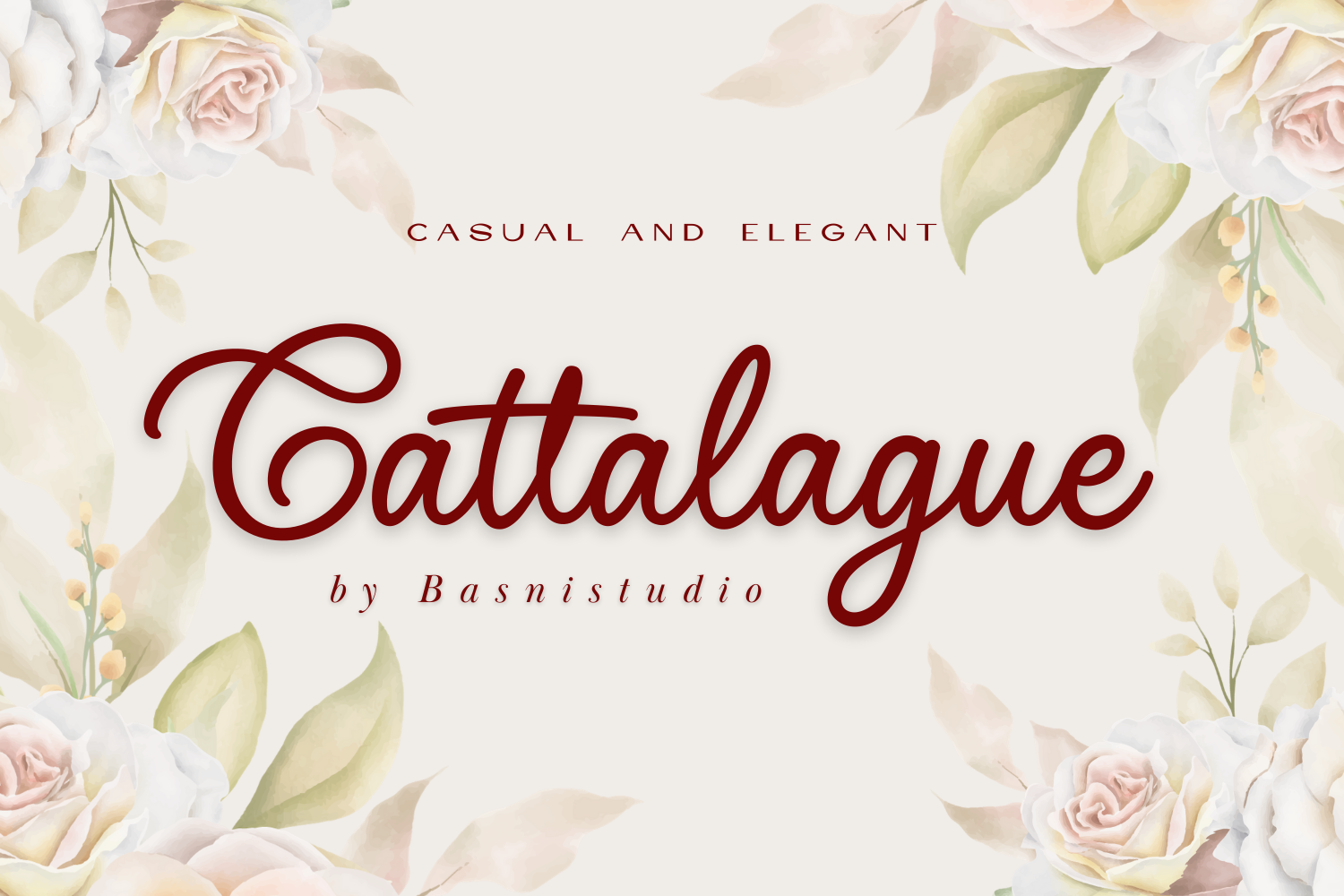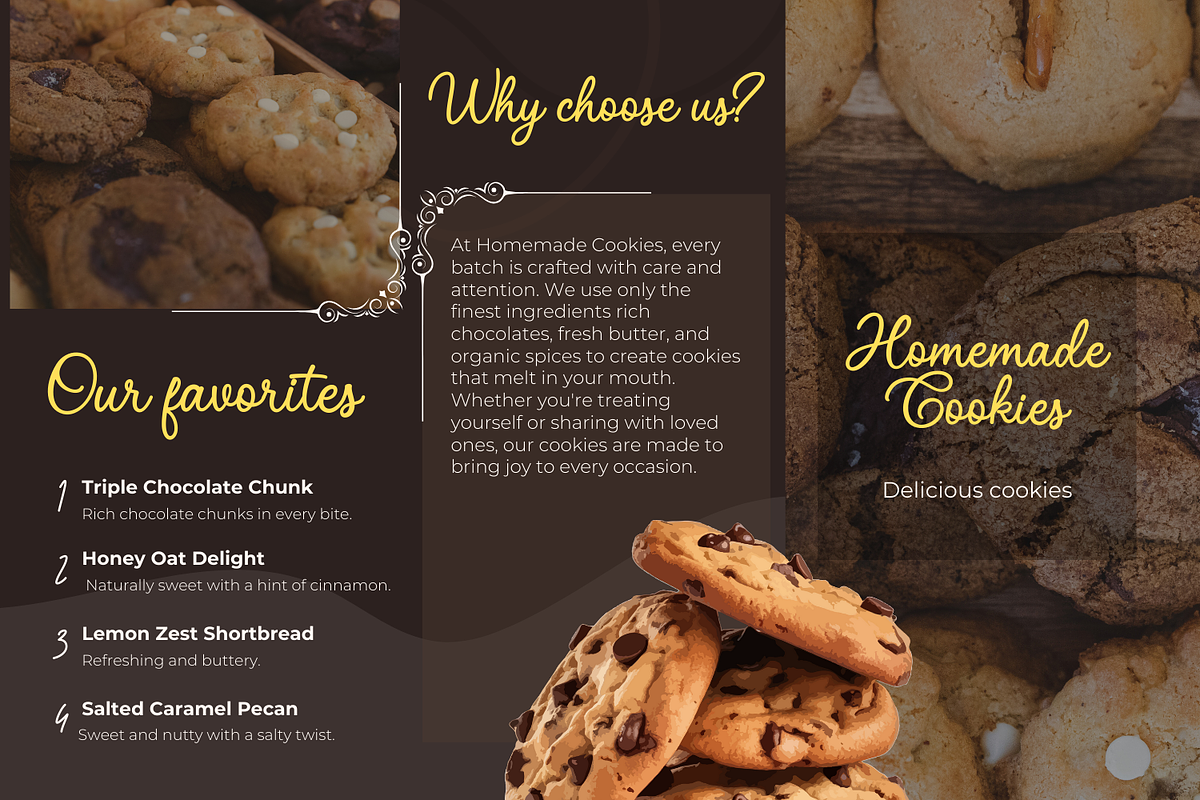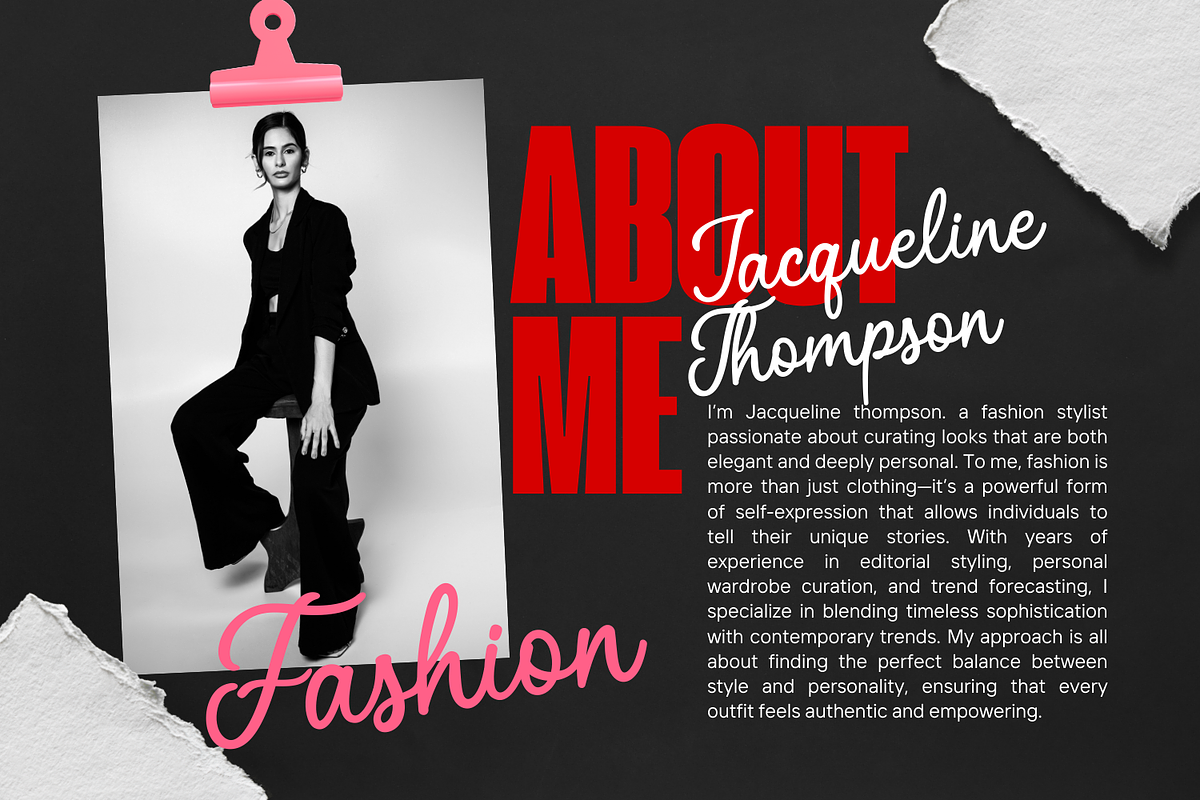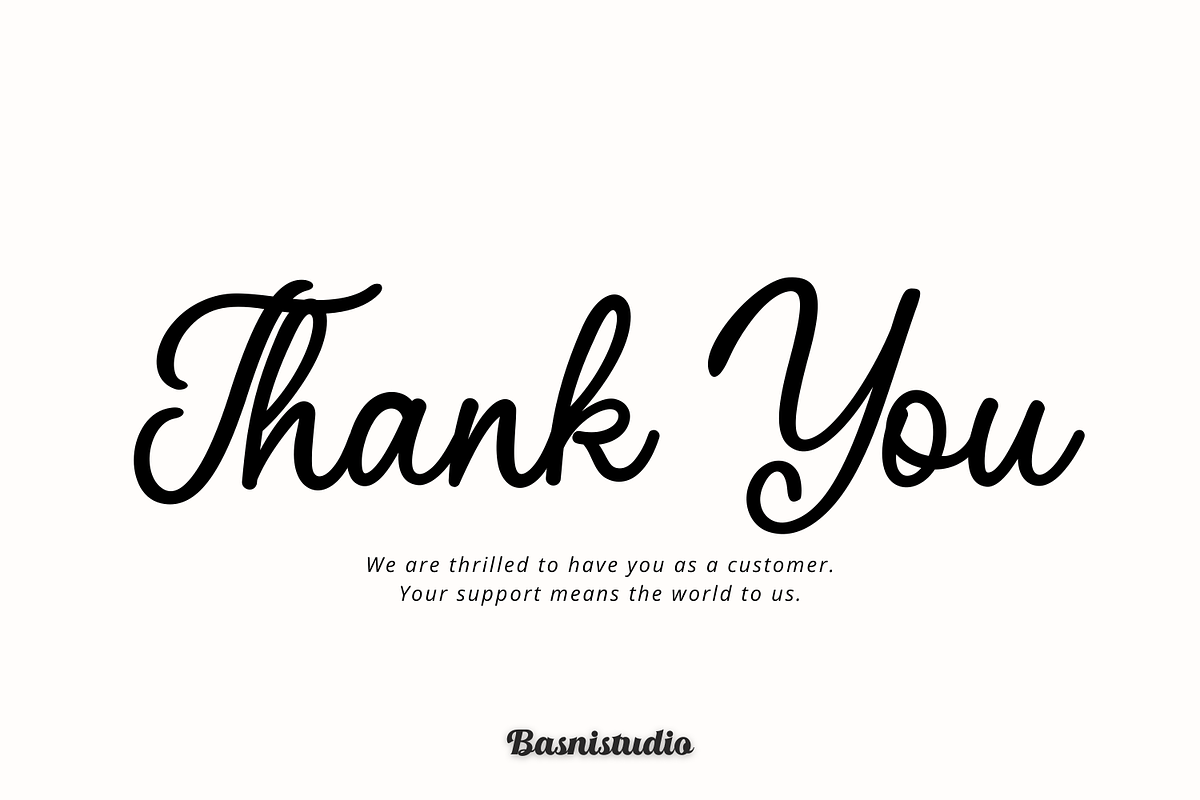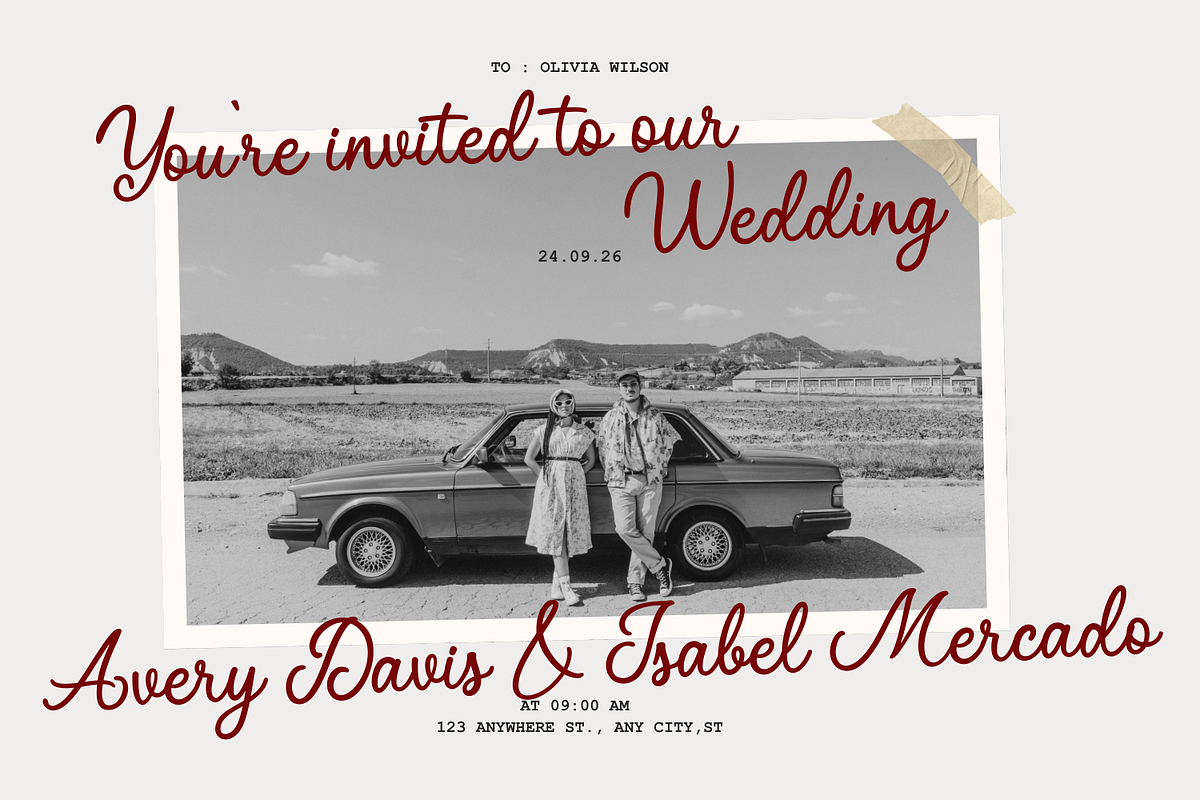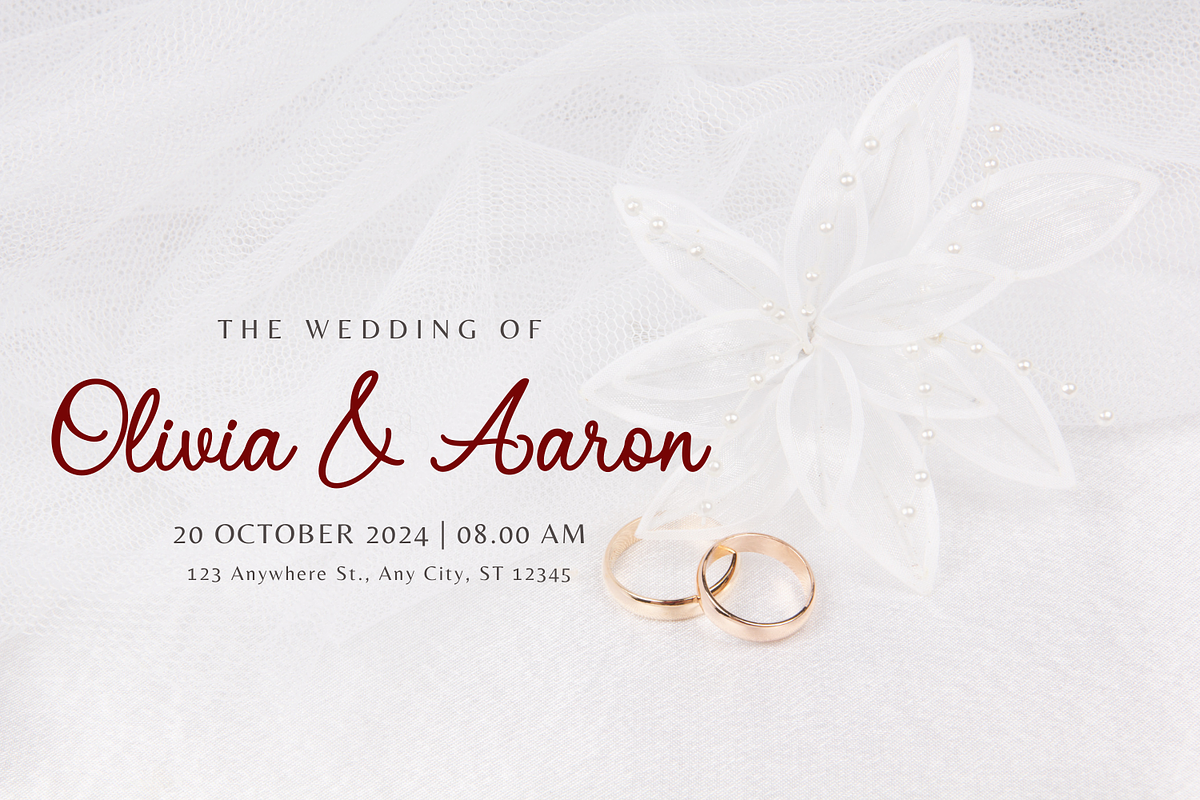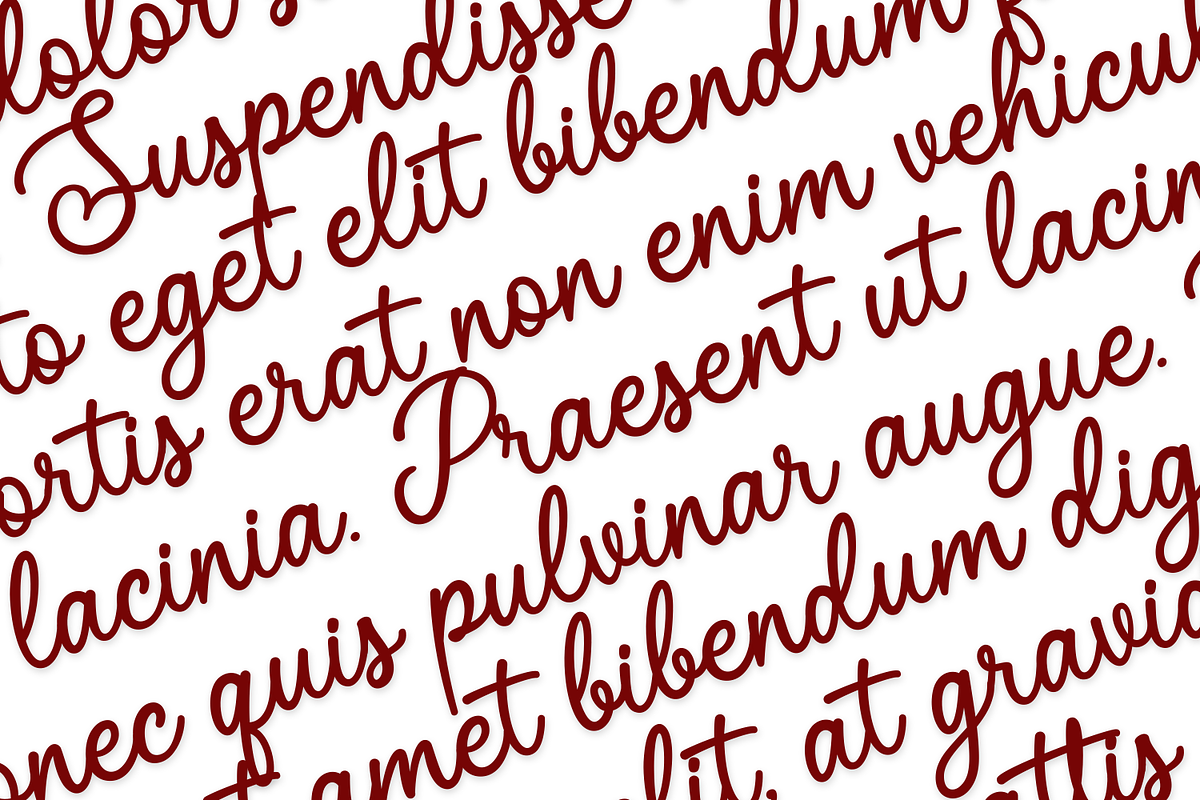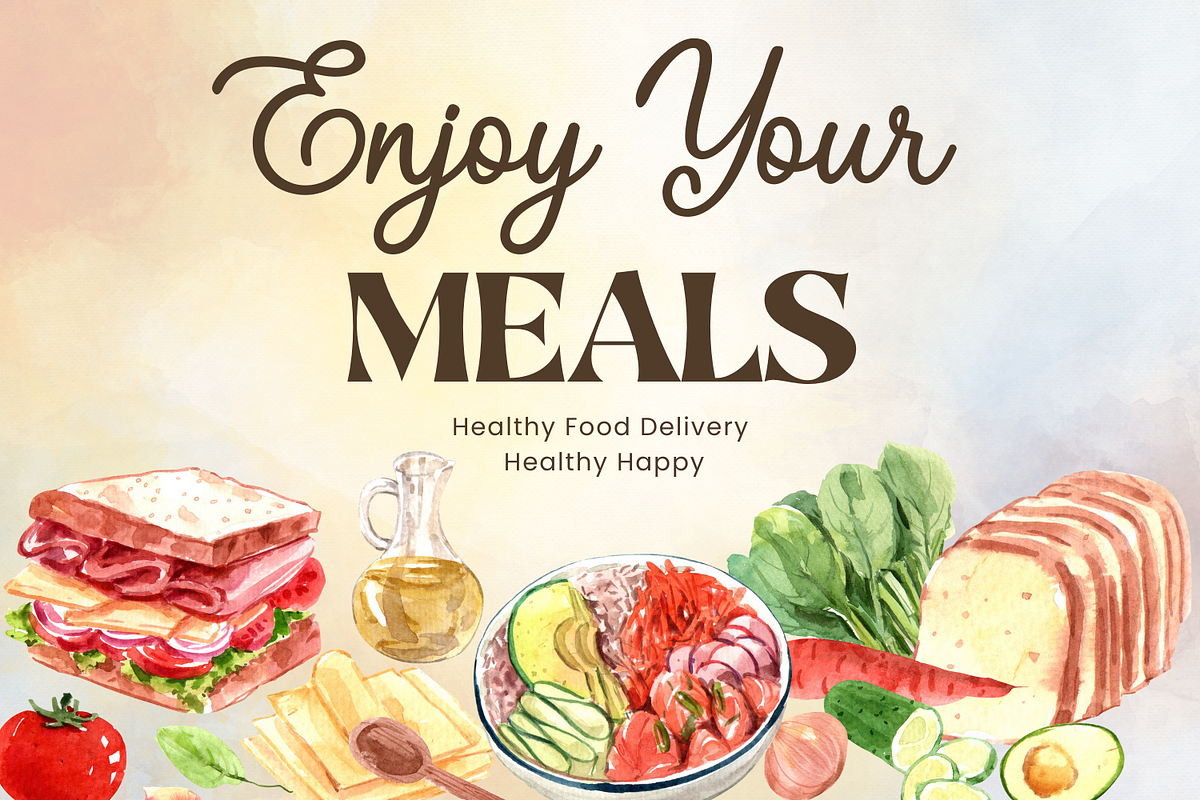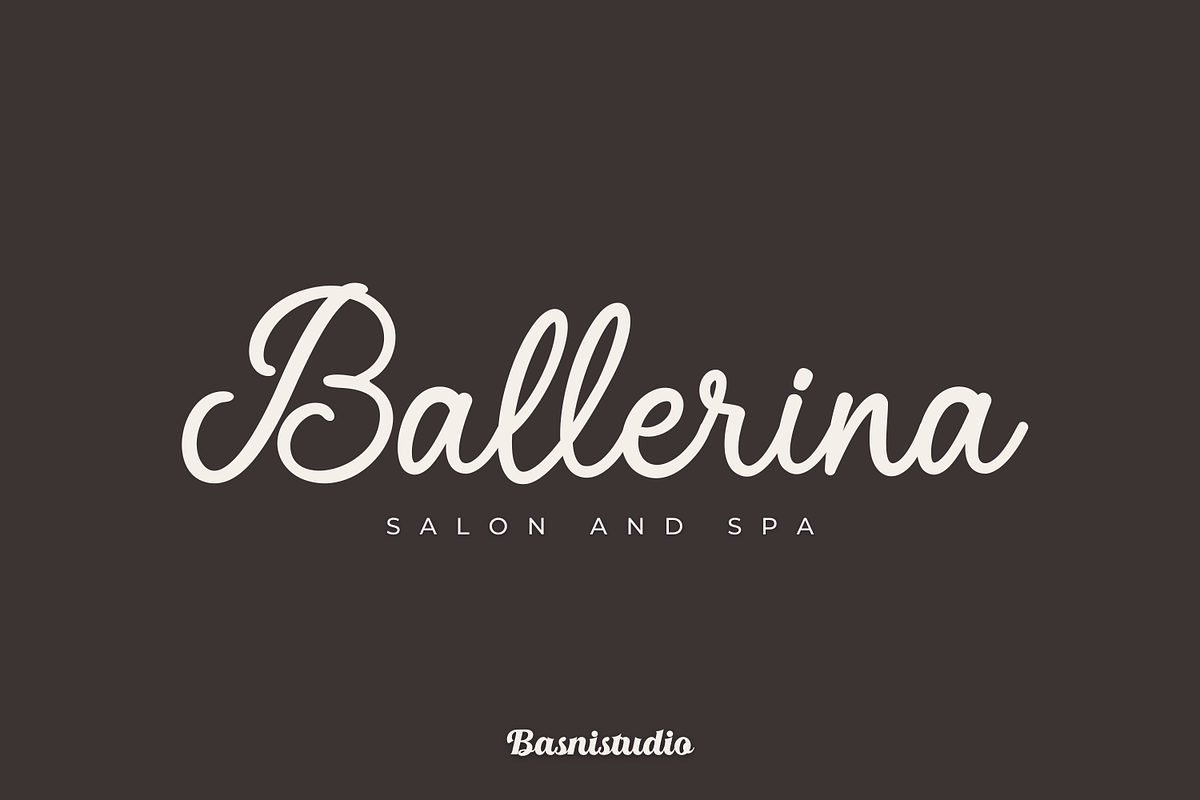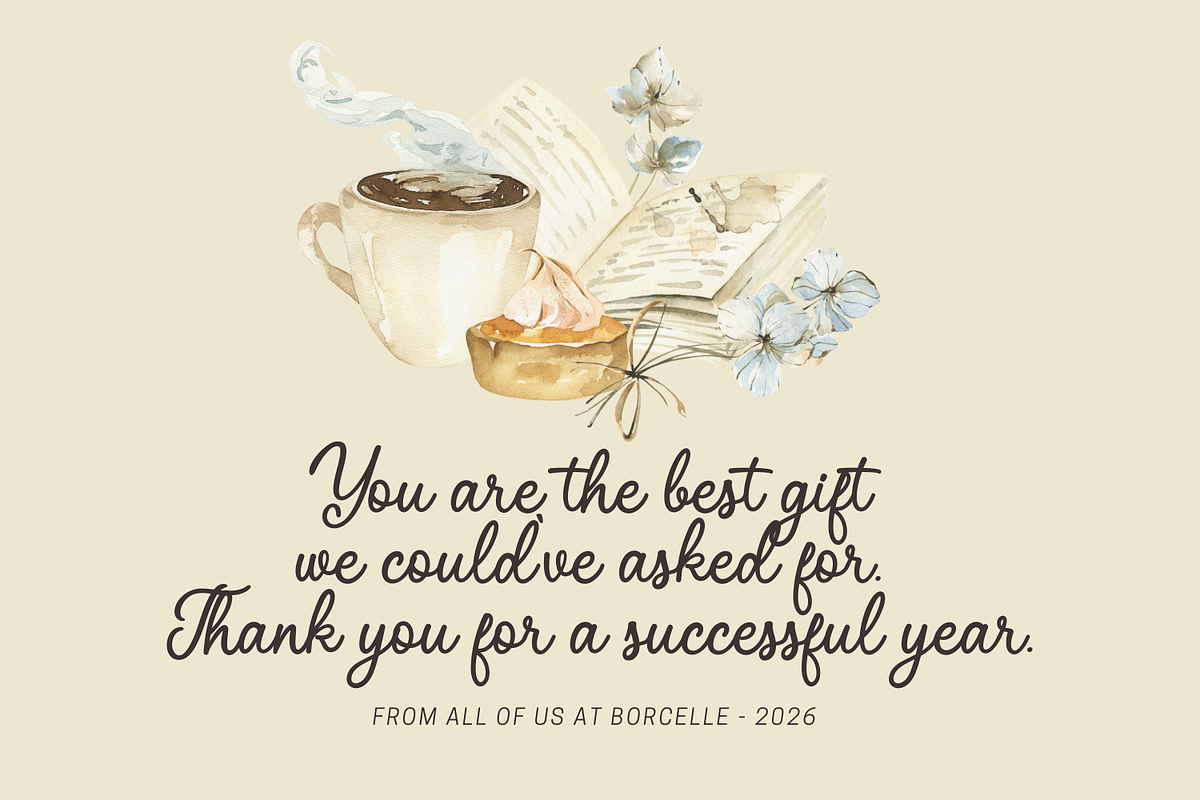
Cattalague a Script Font
The Perfect Script Touch for Your Designs
Introducing Cattalague a Script Font that adds a Bold and Versatile touch to everything from branding and social media to invitations and packaging.
Bold & Versatile – Perfect for logos, quotes, greeting cards, and more Authentic Handwritten Feel – Created with real pen strokes for a natural look Easy to Use – Works seamlessly with all major design programs
Whether you're building a powerful brand identity or crafting a standout logo,
Cattalague a Script Font gives you the creative edge you need.
Uppercase & lowercase letters Ligature Numbers & punctuation Multilingual Support ( Support for 90 languages )